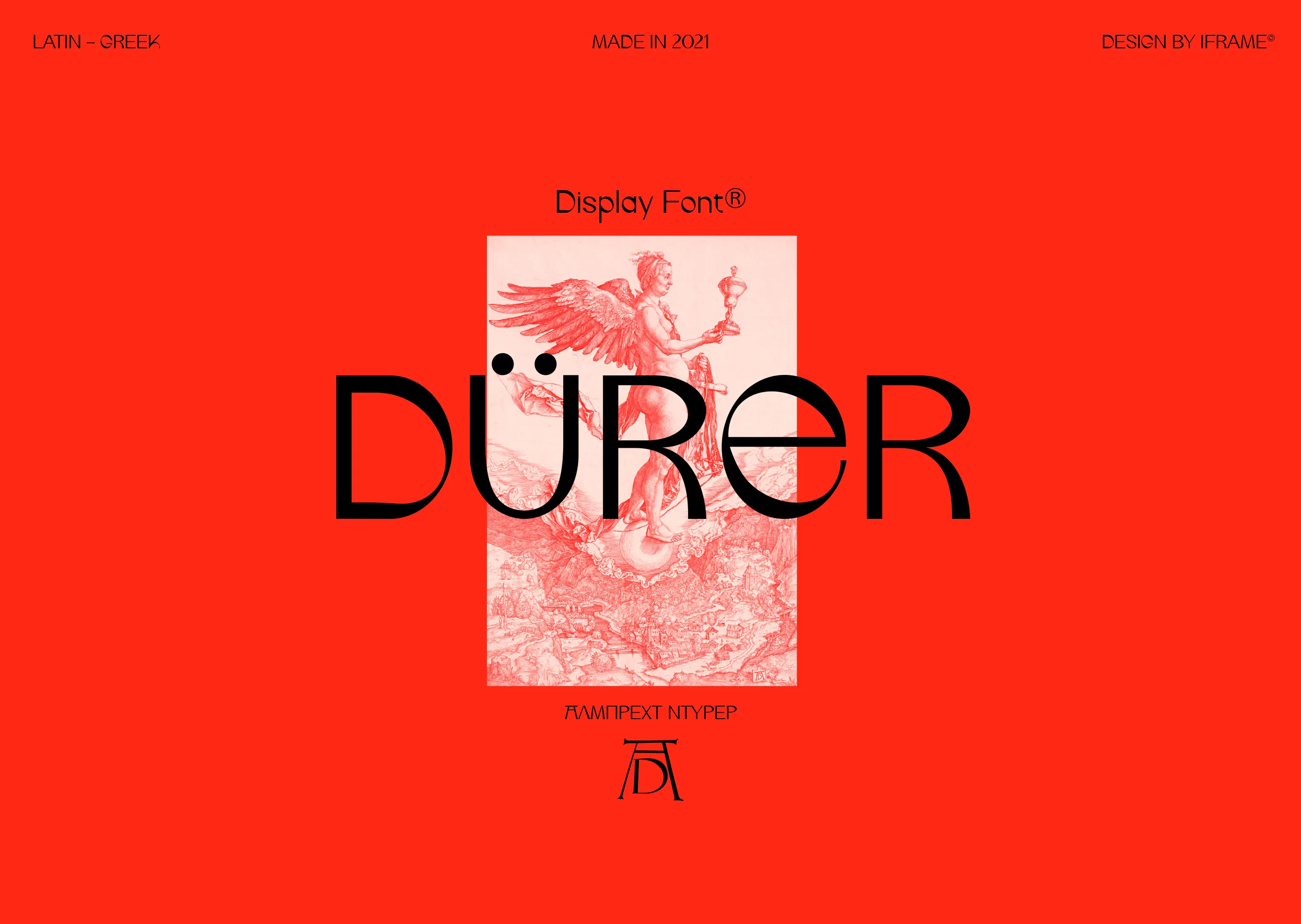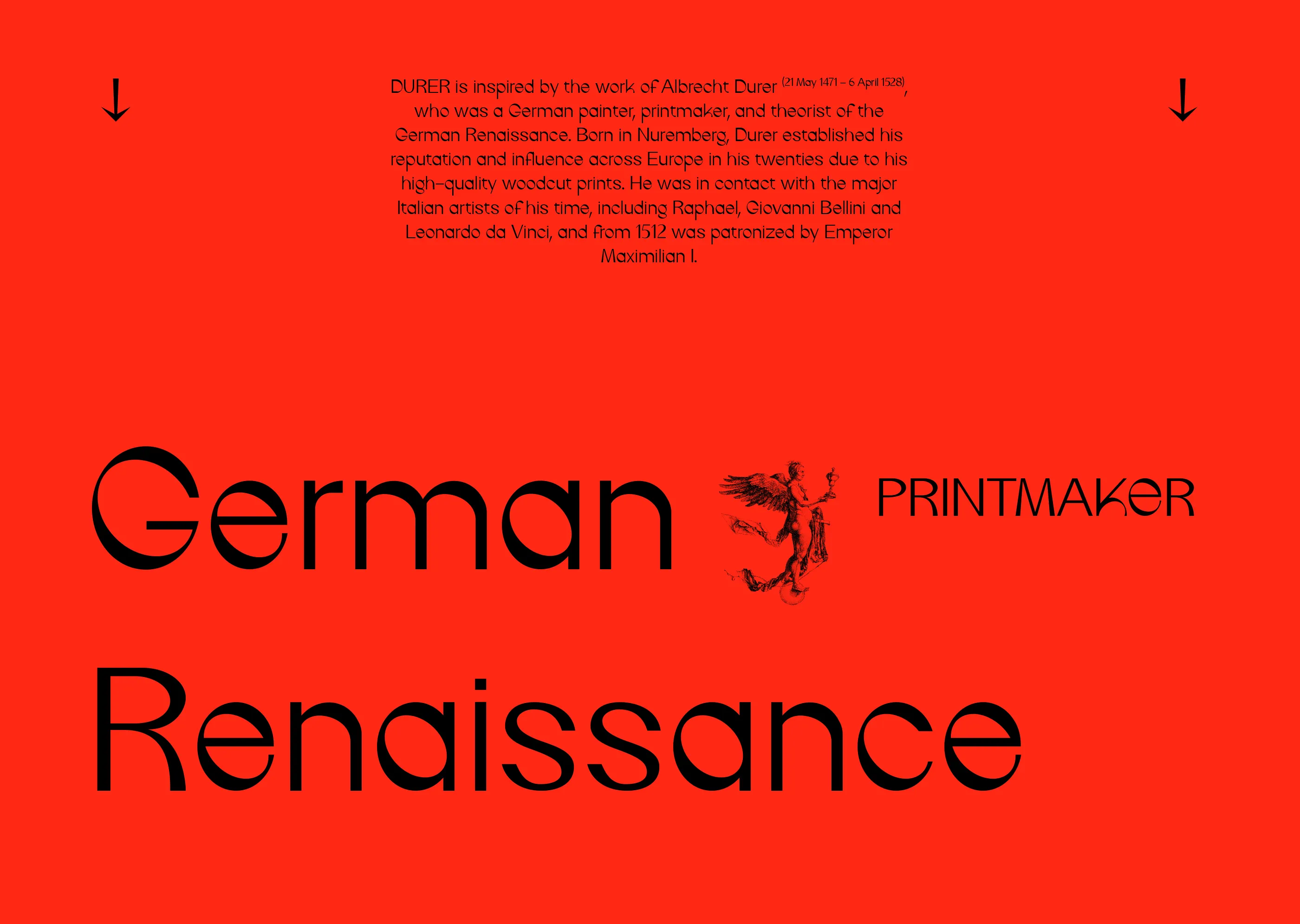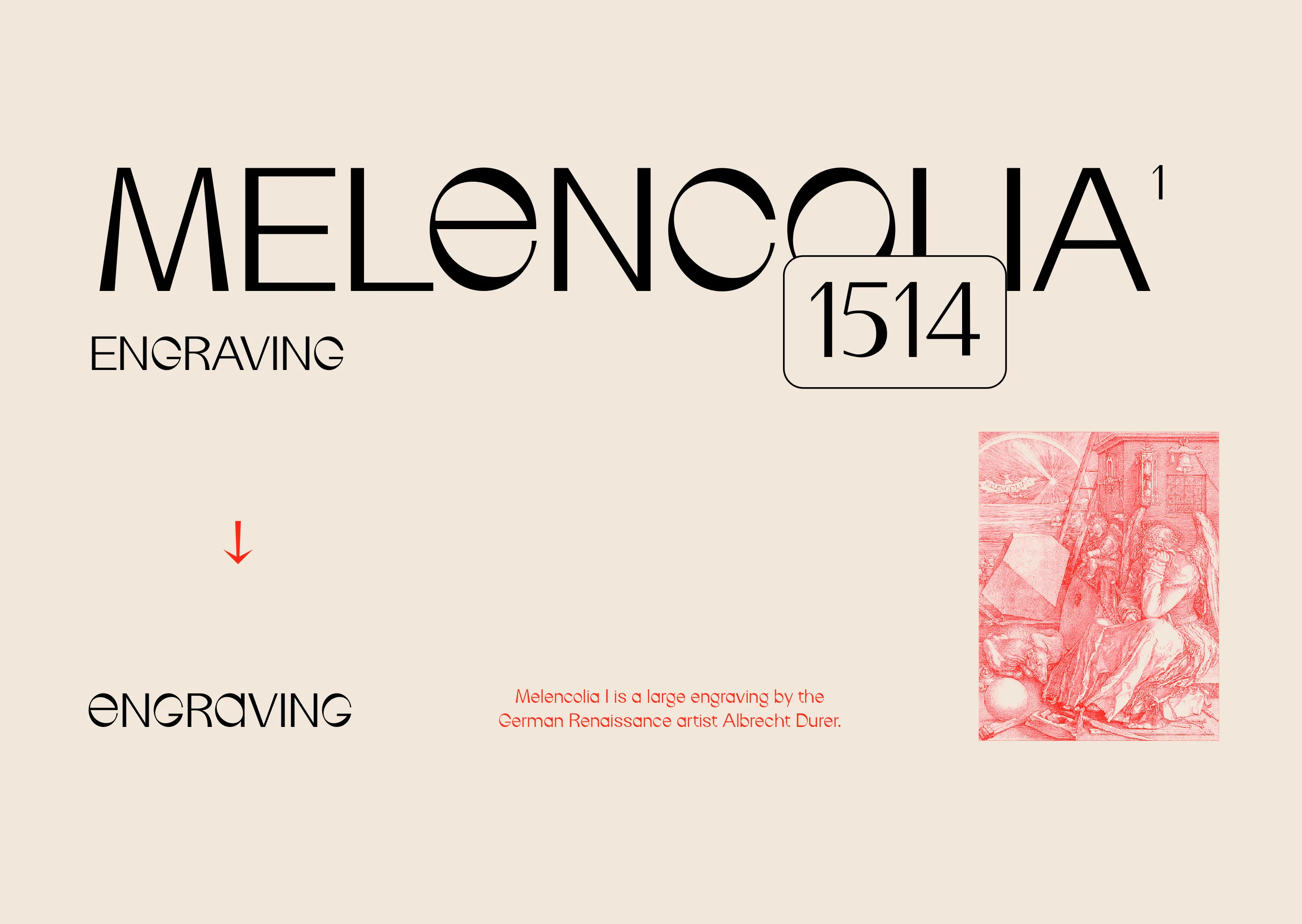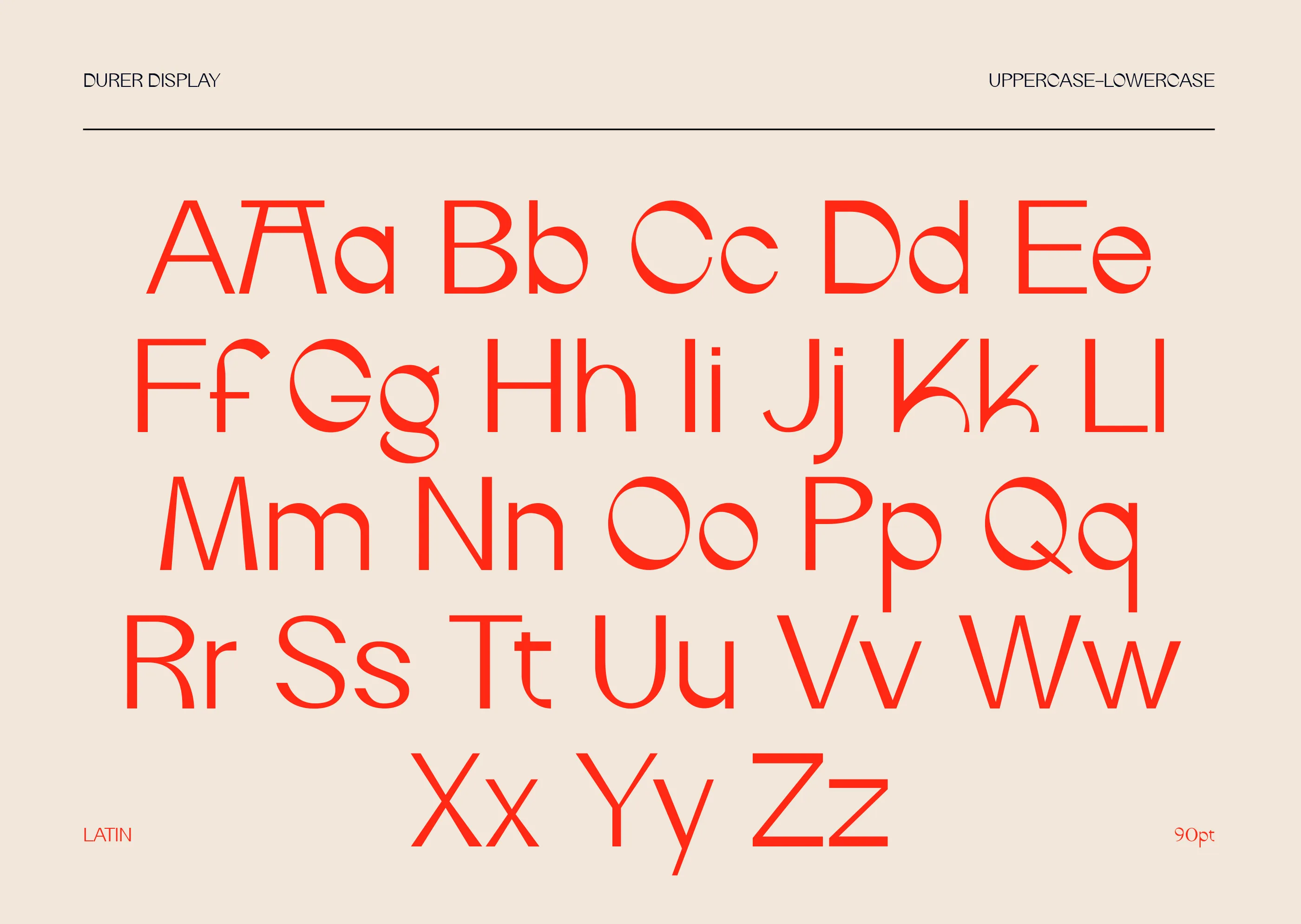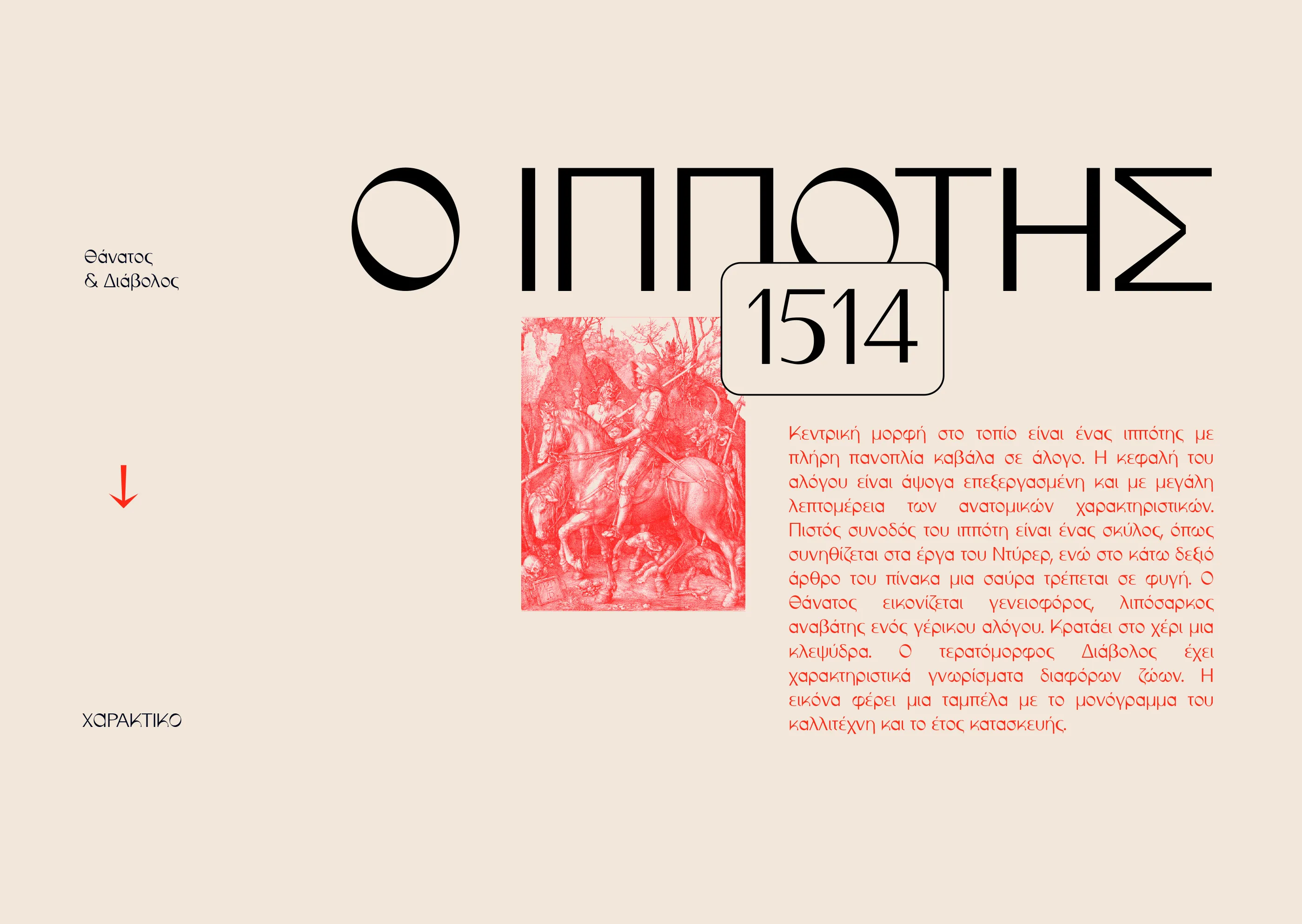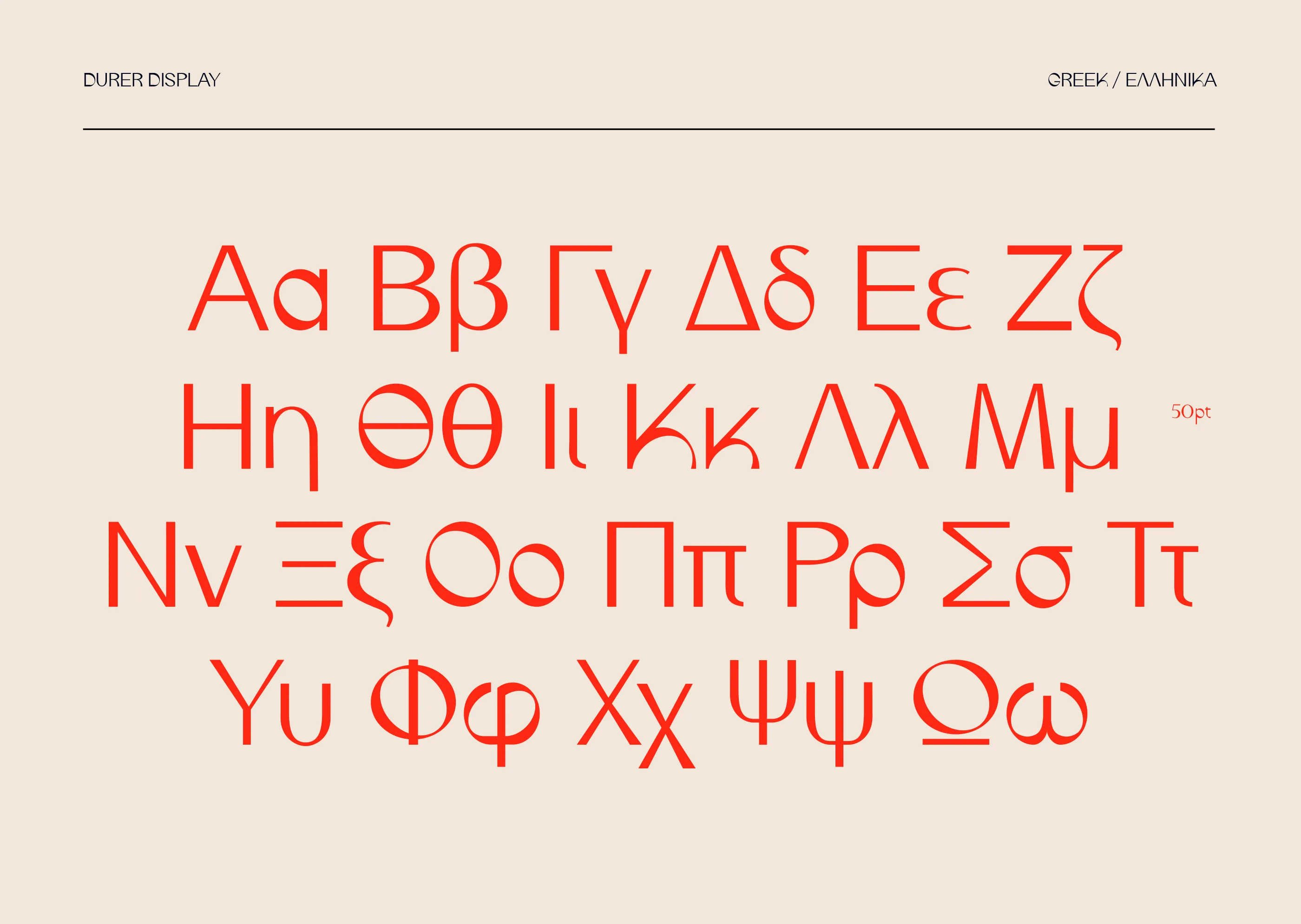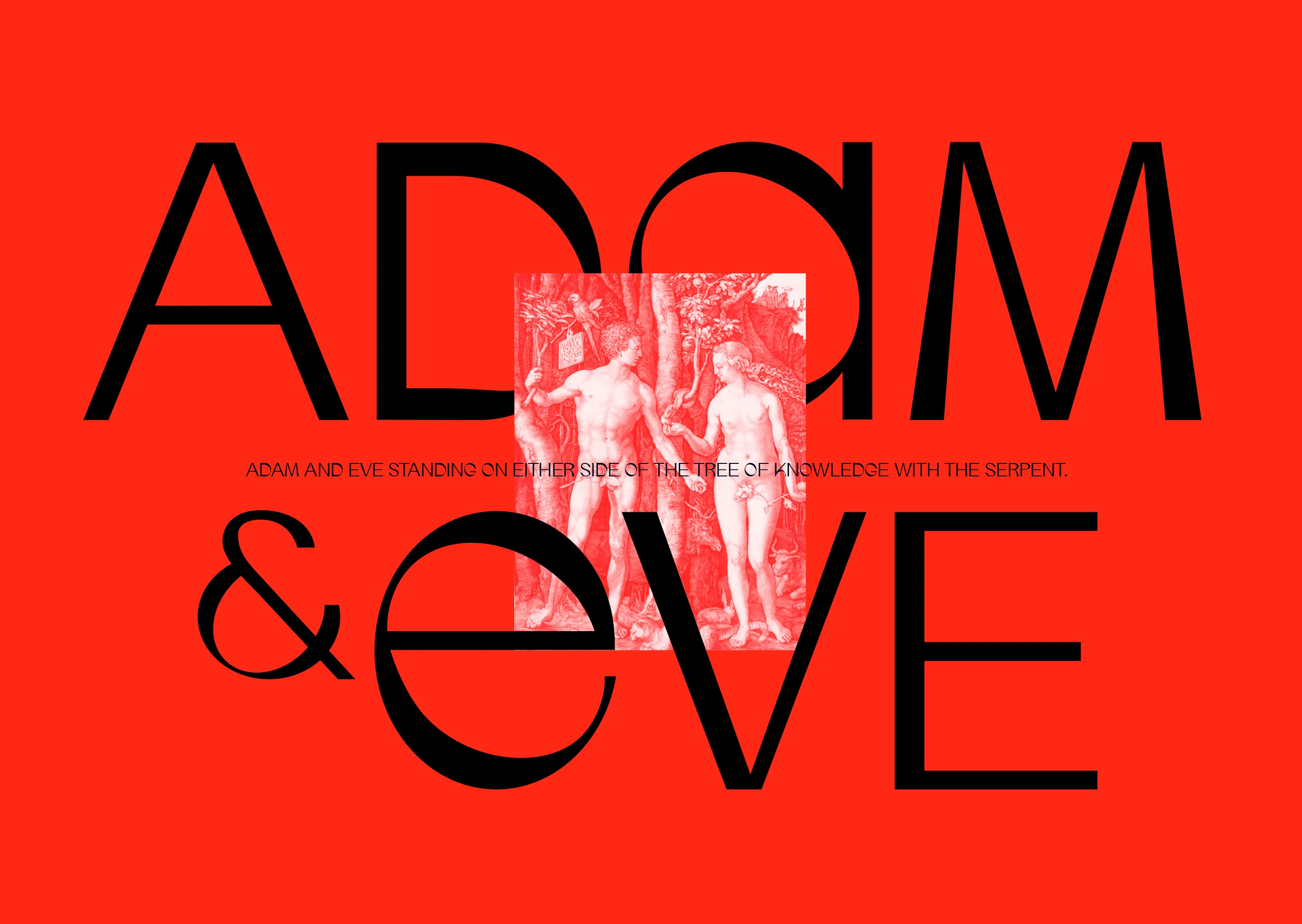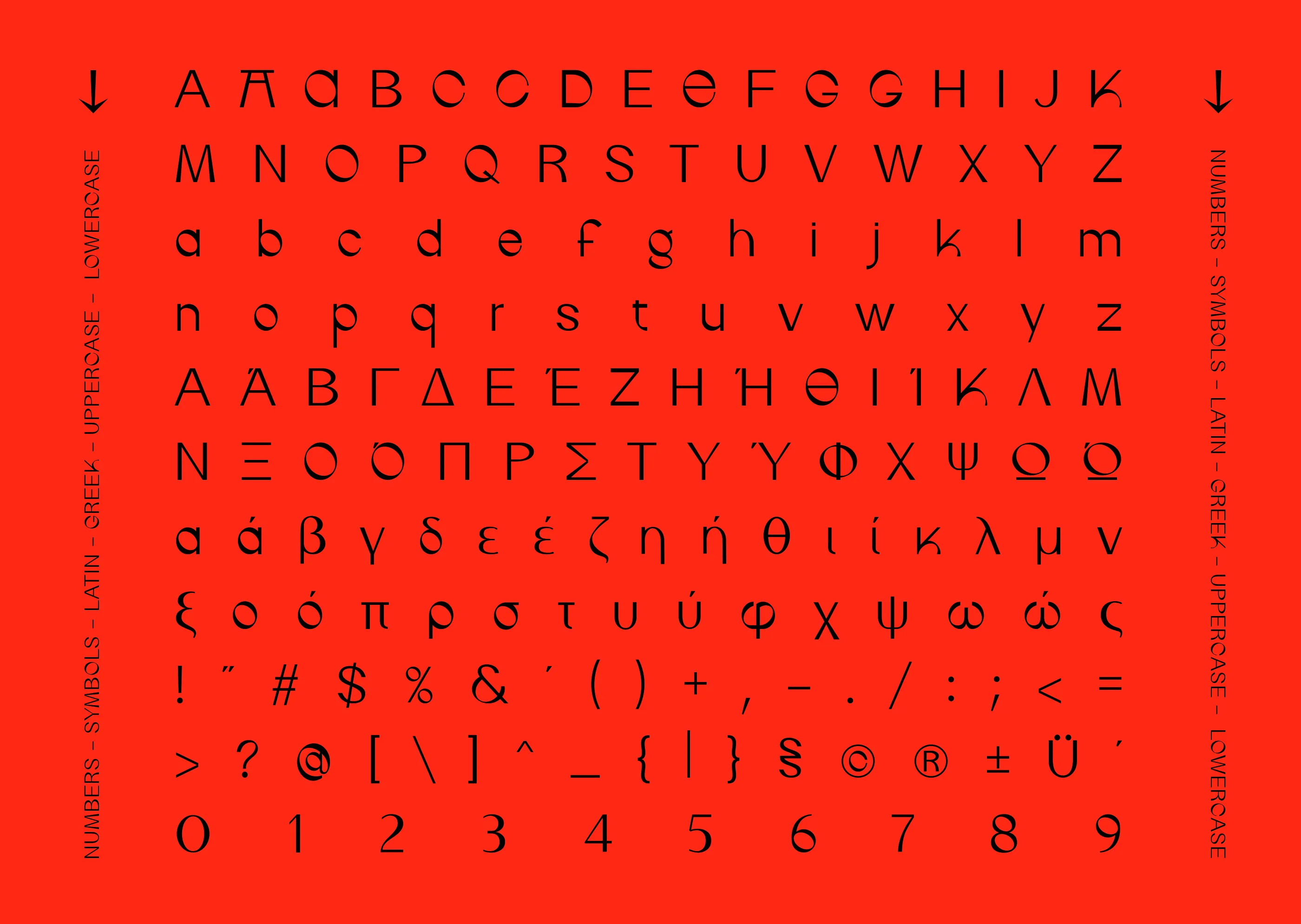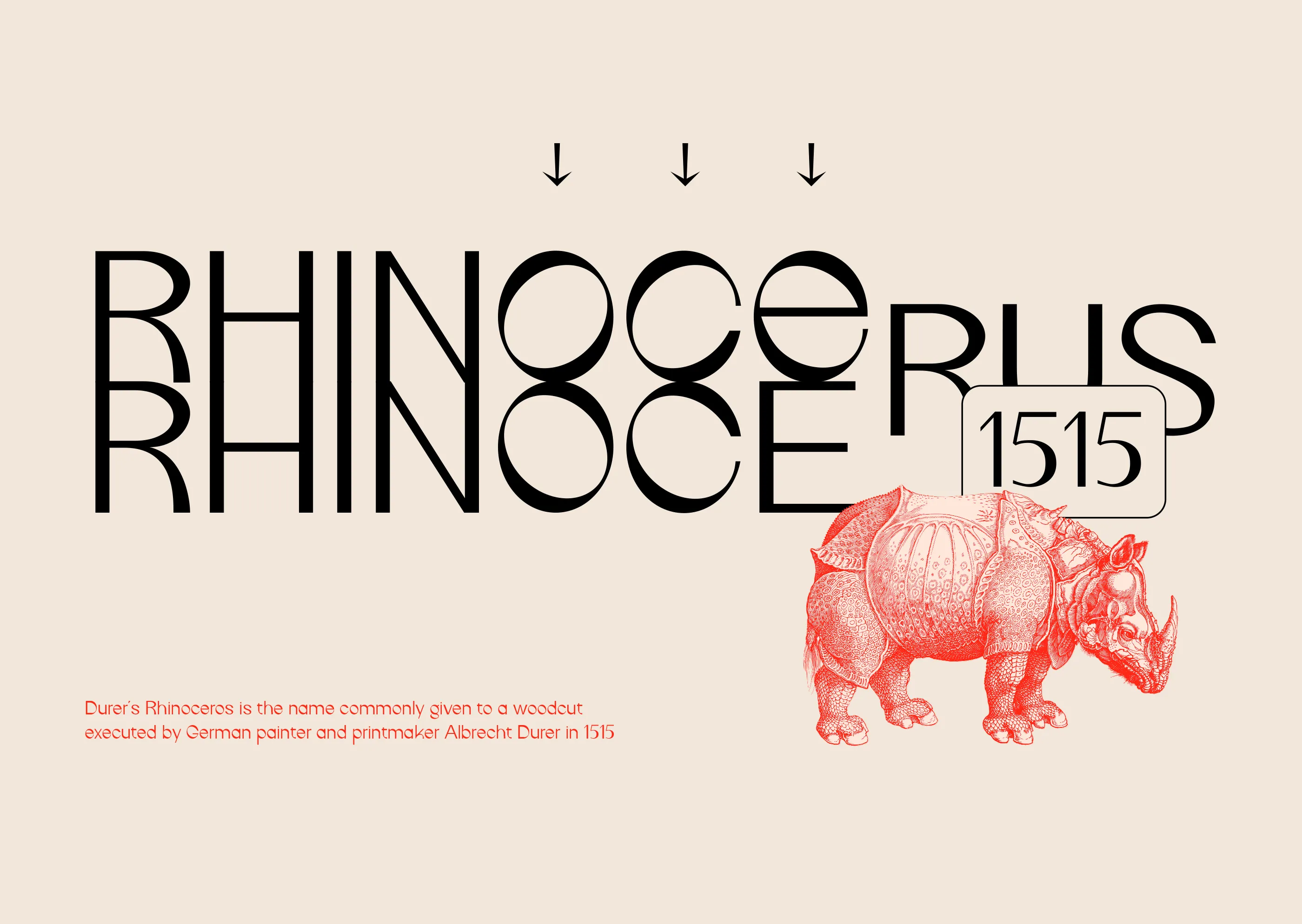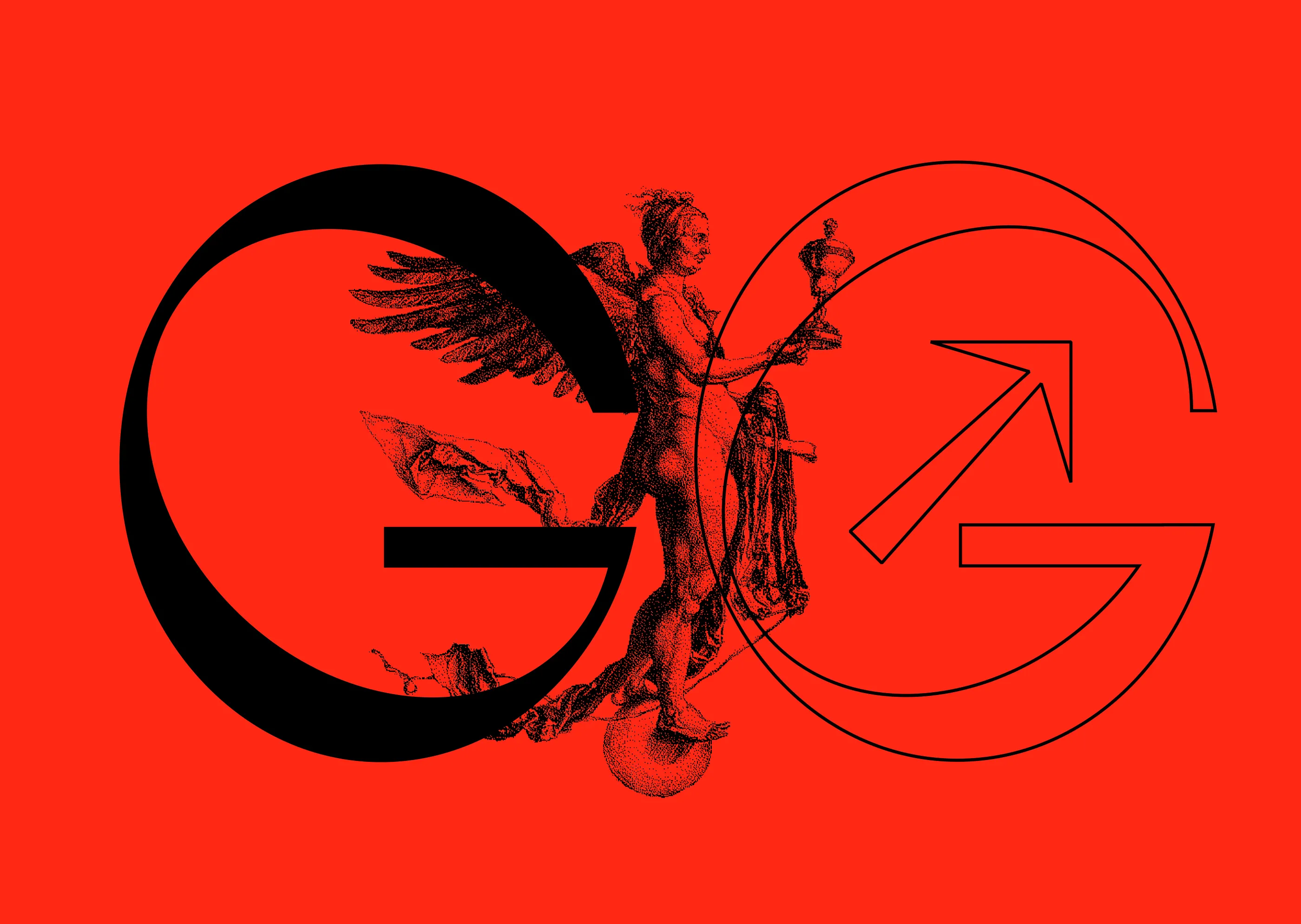
DURER DISPLAY FONT
Durer is a modern font, its soft curves and refined details create a sense of elegance.
Inspired by the work of Albrecht Dürer (21 May 1471 – 6 April 1528), who was a German painter, printmaker, and theorist of the German Renaissance. Born in Nuremberg, Dürer established his reputation and influence across Europe in his twenties due to his high-quality woodcut prints.
FEATURES
- Opentype Features
- 1 weight
- Upper / lower case, numbers, punctuation
- Supported Languages: Latin & Greek